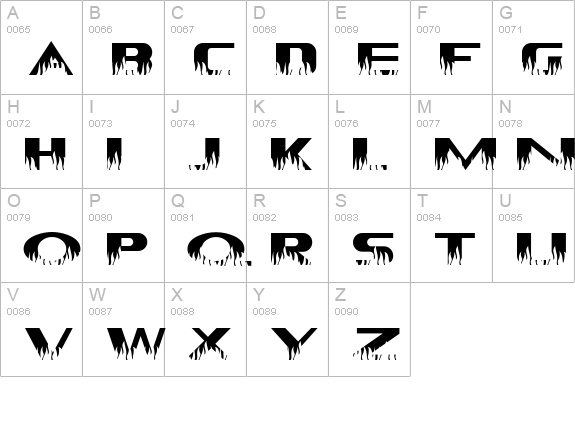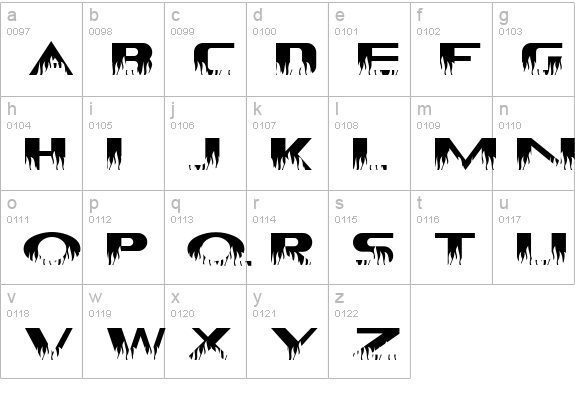
CHE LIVES! Font Details
CHE LIVES! font is a bold and expressive typeface that exudes rebellious energy and revolutionary spirit. Inspired by iconic Che Guevara imagery, this font captures the essence of activism and passion. With its unique and eye-catching design, CHE LIVES! is perfect for making a statement on posters, banners, and social media graphics. The best part? CHE LIVES! font is freely available to download at FontsMarket.com. Embrace the power of this font and let your creativity run wild with its striking characters and dynamic style. Make a bold impact with your designs and stand out from the crowd with CHE LIVES! font.